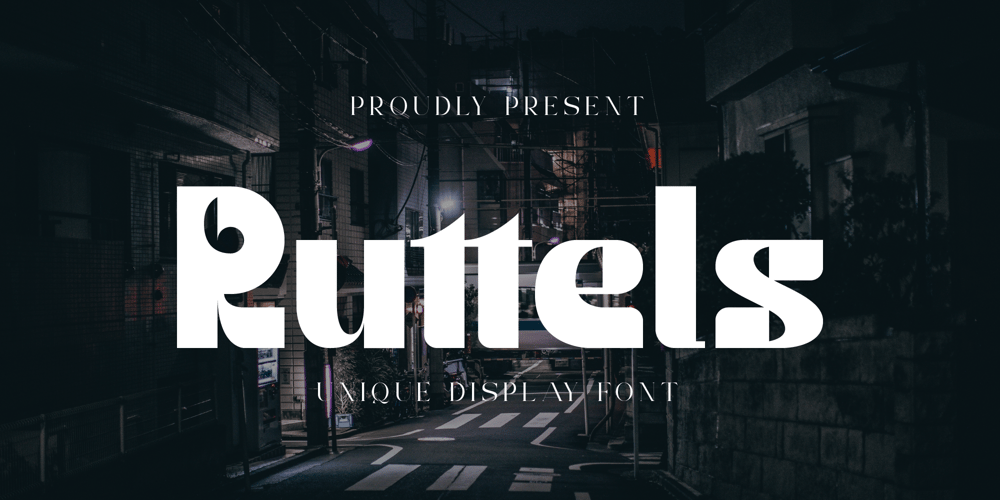
Ruttels
Ruttels font
Ruttels Font Family was designed by Irfan Hidayat and published by Creative17studio. Ruttels contains 3 styles and family package options. IntroducingA new typeface, “Ruttels“. “Ruttels” is a unique and powerful display font.Inspired by the unique and popular Motter Ombra font designed by Othmar Motter.Ruttels is a custom font, which this font can be applied in various types of design and web-print. the form of a character that seems strong, makes this font can give a prominent impression in every design. Features:– Complete basic characters– Numbers and punctuation marks-Multilingual support-Alternative letters Available in regular, italic, and outline styles Any question? just ask.Free update.